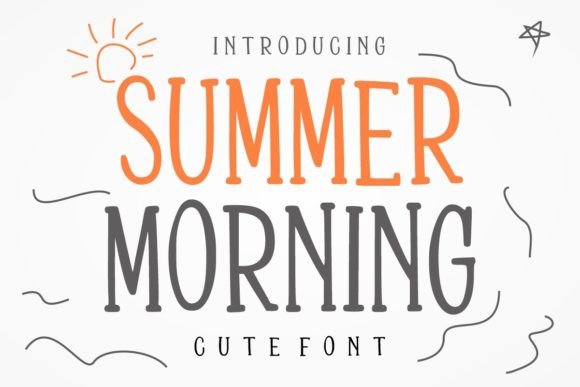
Embark on a typographic journey with Summer Morning Font, a creation of Infinity Art Studio, meticulously designed to transform your visual expressions into captivating masterpieces. This display font, with its delicate handwritten strokes and playful charm, beckons you to explore the realm of creative possibilities.
Summer Morning Font is more than just a collection of letters; it's an invitation to let your imagination run wild. Its casual vibe and informal style evoke a sense of warmth and approachability, making it the perfect choice for creating designs that resonate with your audience. Whether you're crafting product packaging, designing invitations, or simply adding a touch of whimsy to your quotes, Summer Morning Font is your perfect companion.
With its versatility, Summer Morning Font seamlessly adapts to a myriad of design projects. Its thin, simple strokes lend an air of elegance to logos and branding materials, while its friendly demeanor shines through in t-shirt designs and posters. Unleash your creativity and let Summer Morning Font guide you to exceptional design outcomes.
But Summer Morning Font doesn't stop at aesthetics; it's also a font designed for functionality. Its exceptional text recognition capabilities make it the ideal choice for projects where clarity and legibility are paramount. Whether you're creating marketing materials or crafting digital content, Summer Morning Font ensures that your message is conveyed with crystal-clear precision.
Join the creative revolution and embrace Summer Morning Font, the font that ignites imagination and empowers expression. Let its whimsical charm captivate your audience and elevate your designs to new heights. Download Summer Morning Font today and embark on a typographic adventure that will leave an indelible mark on your creative endeavors.